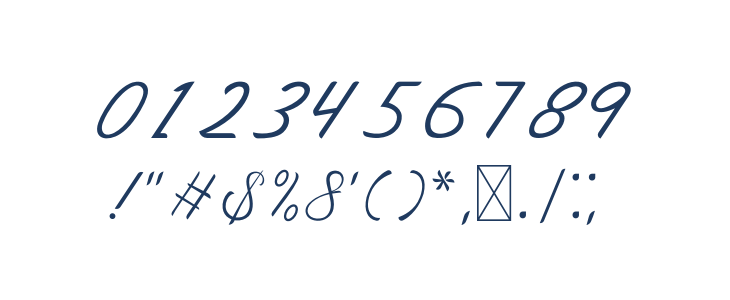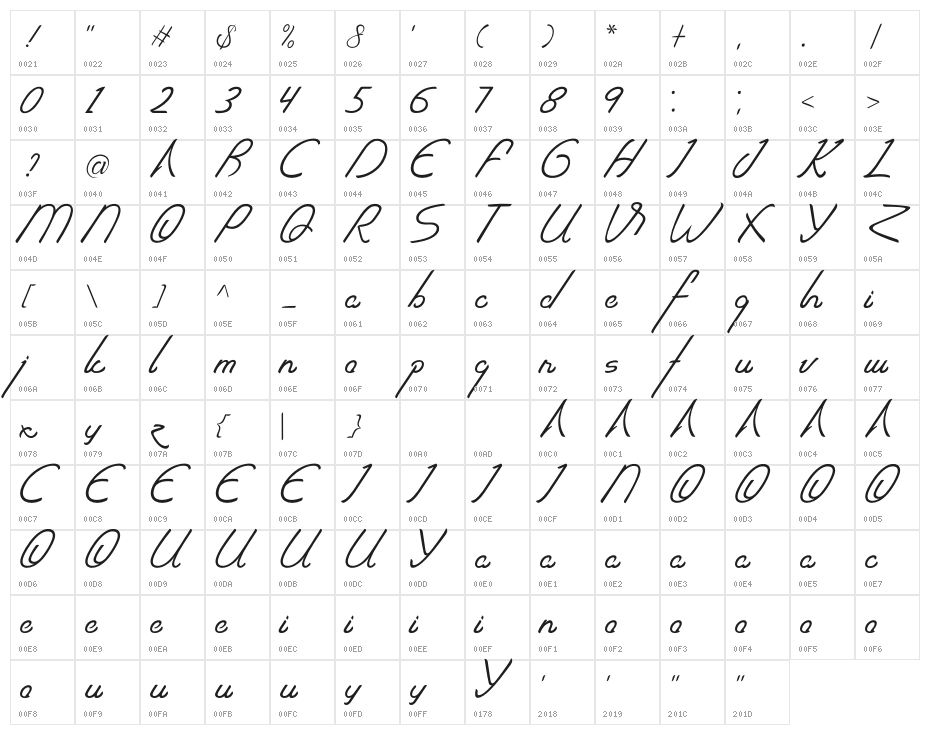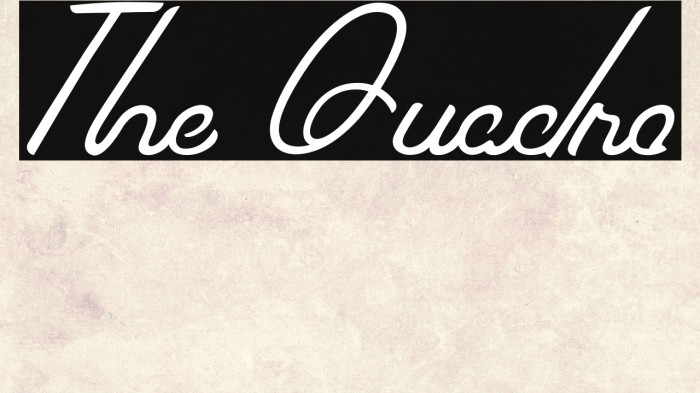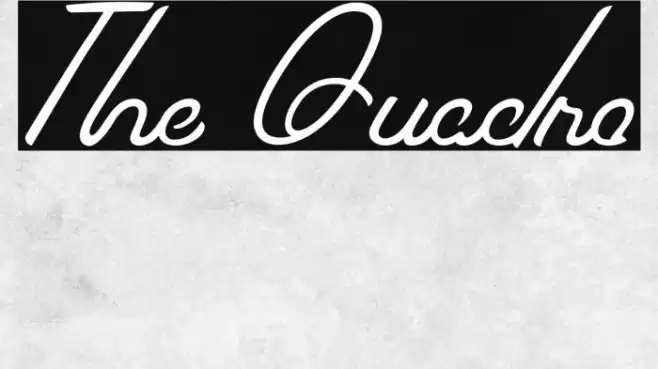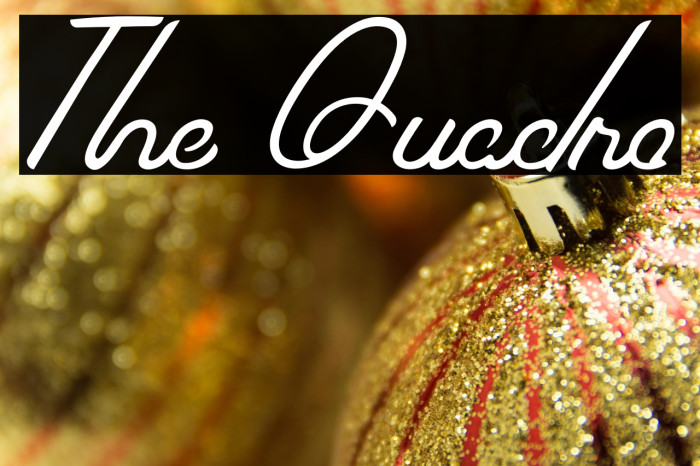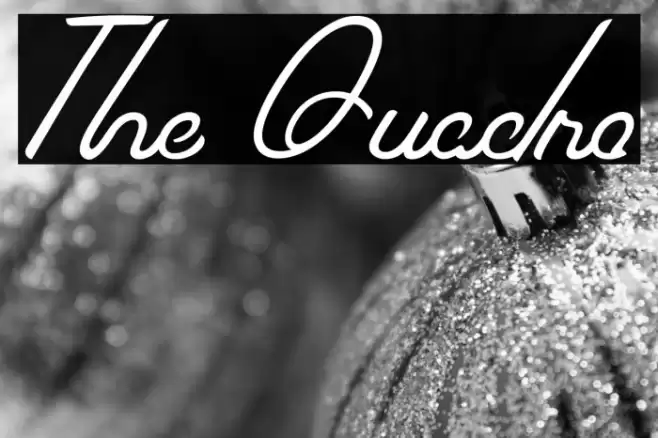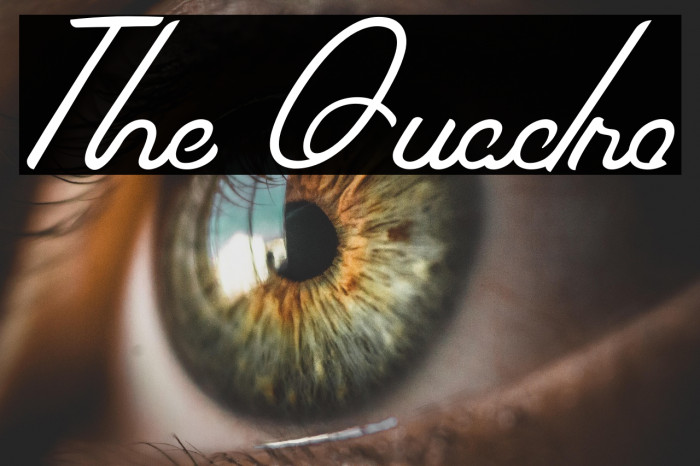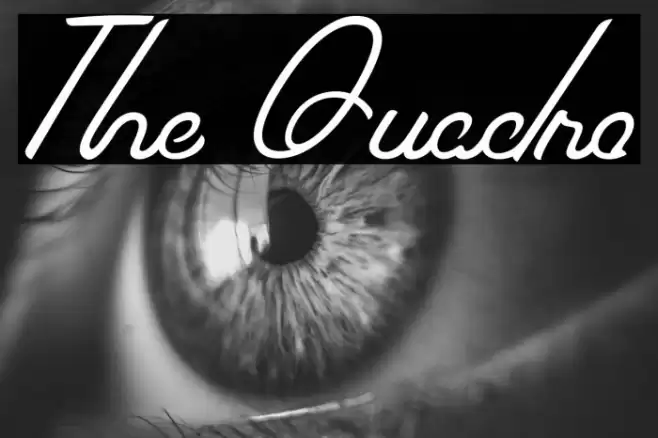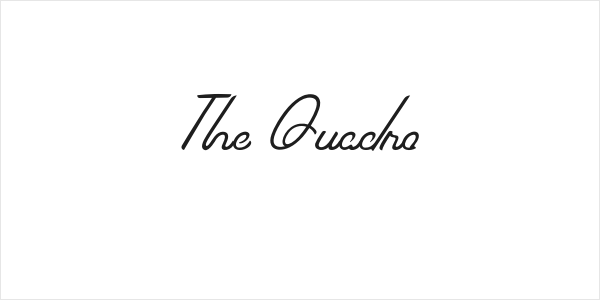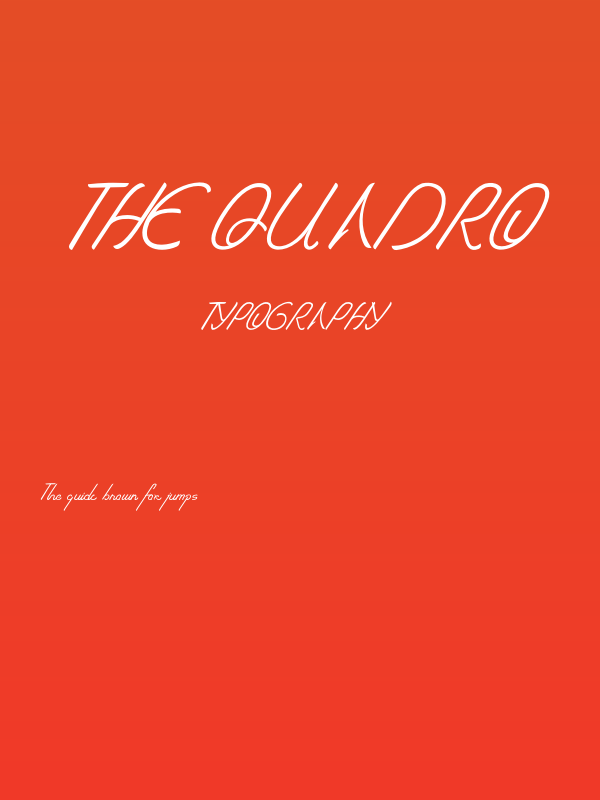
The Quadro Font
The Quadro Description
This font exhibits a flowing, cursive style with elegant, elongated strokes that give it a sophisticated and graceful appearance. The characters are connected, enhancing the fluidity and continuity of the text. The uppercase letters are slightly more upright, while the lowercase letters have a pronounced slant, adding to the dynamic feel. The numerals and special characters maintain the same cursive style, ensuring consistency across all glyphs. The overall design is reminiscent of traditional calligraphy, yet it maintains a modern touch with its clean lines and balanced proportions.